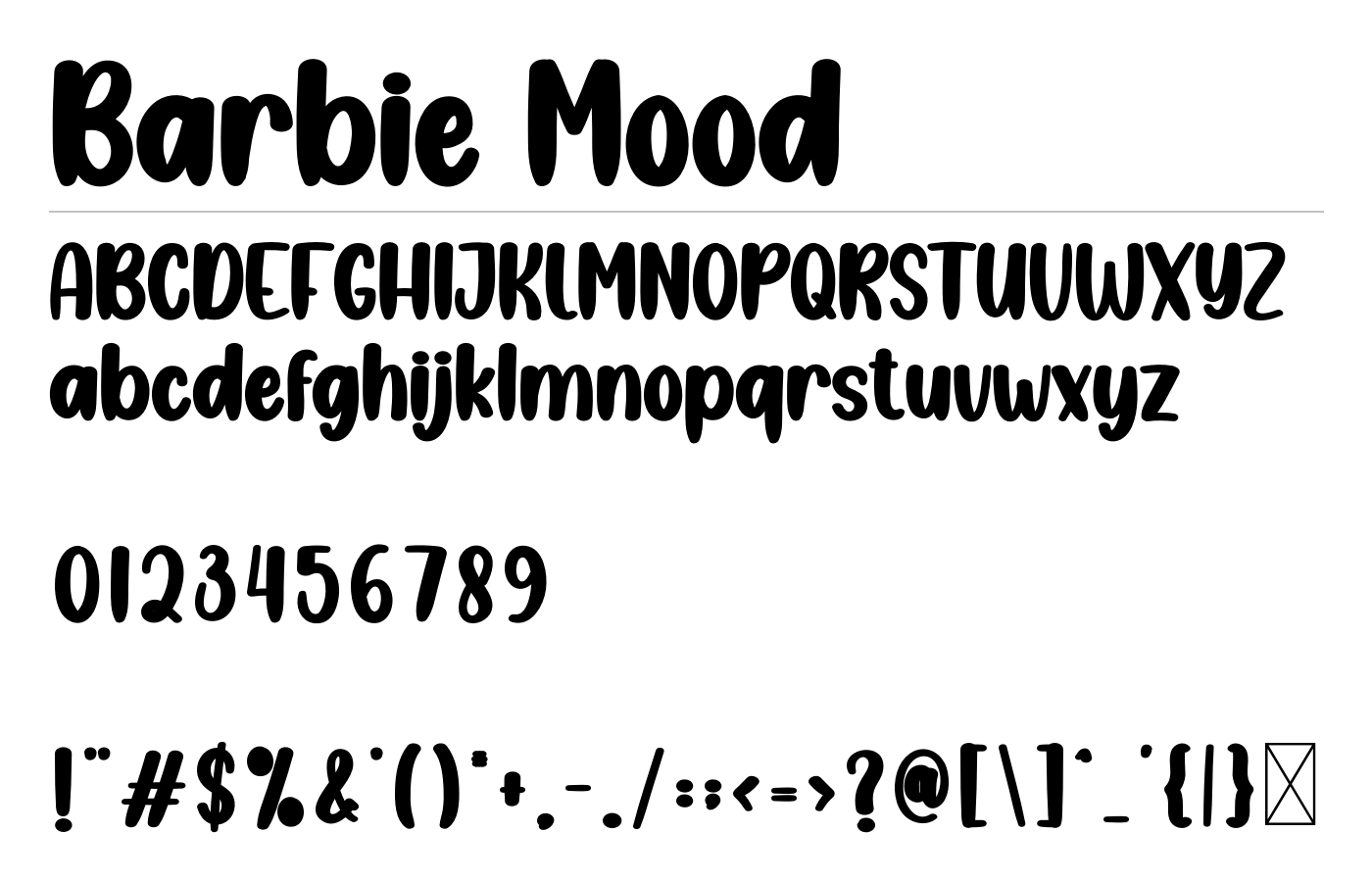
Barbie Mood is a playful and bold sans serif font with a rounded, hand-drawn feel that conveys friendliness and fun. Its thick, slightly irregular strokes and lively letterforms make it perfect for children's brands, casual designs, or creative projects seeking a cheerful, approachable vibe. This font works well in headlines, logos, and packaging where a warm and energetic personality is desired.
Barbie Mood Font